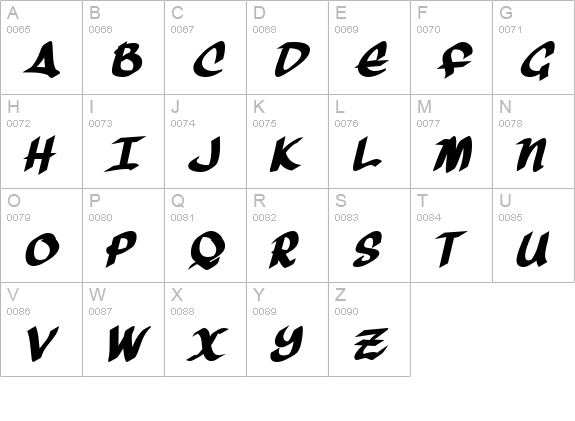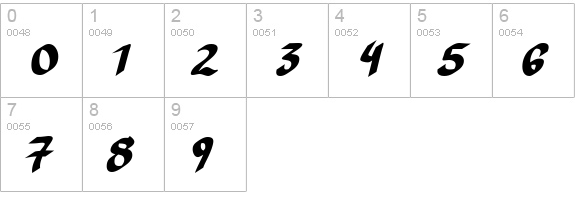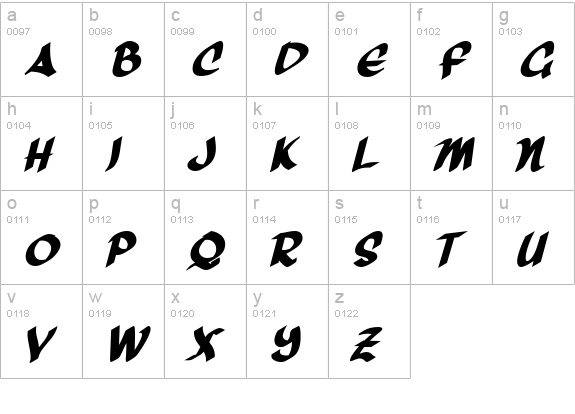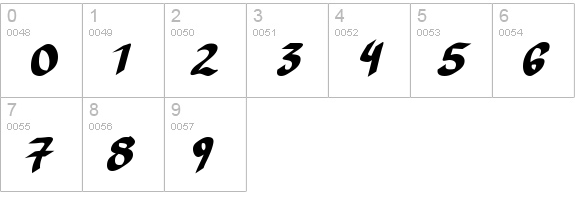
Three Arrows Bold is a strong, high-contrast variant in the Three typeface family \xE2\x80\x94 well suited to headlines, attention-grabbing titles, and strong calls-to-action.
Introducing Three Arrows Bold font, a striking typeface that combines elegance with a bold and modern twist. This font is perfect for those seeking to make a statement with their designs, whether it's for a logo, branding, or eye-catching headlines. With its clean lines and strong presence, Three Arrows Bold commands attention and captivates the viewer's gaze. What sets Three Arrows Bold apart is not only its impressive aesthetics but also its versatility. This font effortlessly adapts to various design projects, whether it's a sleek and contemporary website or a vintage-inspired poster. Its boldness allows for clear legibility even at smaller sizes, making it ideal for both print and digital media. But that's not all - Three Arrows Bold is not only visually stunning, but it also offers an incredible value. It is available for free download exclusively at FontsMarket.com, a leading platform for font enthusiasts and designers. This means that anyone can access this extraordinary font without breaking the bank, making it an excellent choice for both professionals and amateur designers alike. Whether you're a seasoned designer looking to add a touch of boldness to your portfolio or a beginner experimenting with typography, Three Arrows Bold font is the perfect companion. Its clean and powerful design, combined with its accessibility, makes it a must-have for any font collection. Download Three Arrows Bold for free at FontsMarket.com and let your creativity soar to new heights.